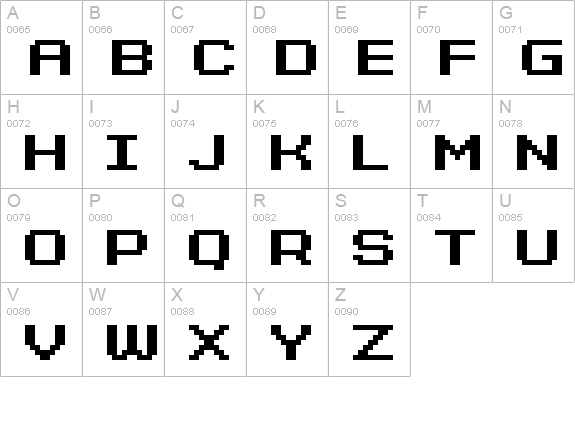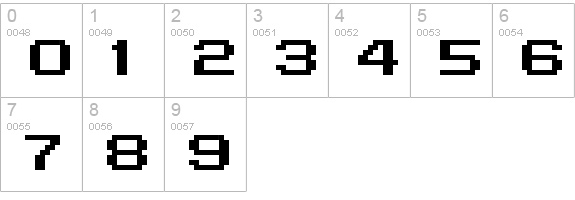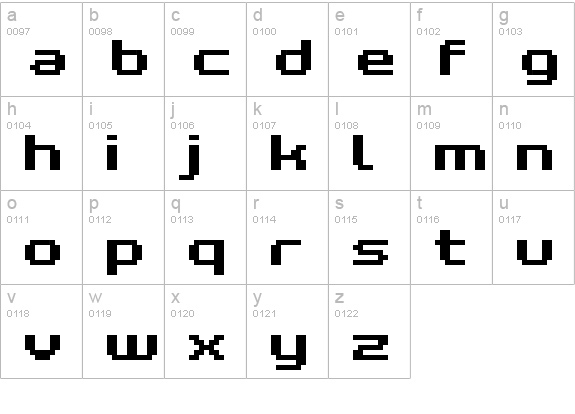
Grixel Kyrou 7 Wide Bold Xtnd is a strong, high-contrast, extended-width variant in the Grixel typeface family \xE2\x80\x94 well suited to headlines, attention-grabbing titles, and strong calls-to-action.
Grixel Kyrou 7 Wide Bold Xtnd font is a striking and bold typeface that exudes modernity and professionalism. Its wide characters and extended design make it perfect for headlines, titles, and other attention-grabbing text. With a sleek and contemporary aesthetic, this font is sure to make a statement in any design project. Best of all, Grixel Kyrou 7 Wide Bold Xtnd font is available for free download at FontsMarket.com. This means you can enhance your projects with this stylish and versatile font without any cost. Whether you're designing a website, creating marketing materials, or working on a branding project, this font will help you achieve a polished and impactful look. Download Grixel Kyrou 7 Wide Bold Xtnd font today and take your designs to the next level!